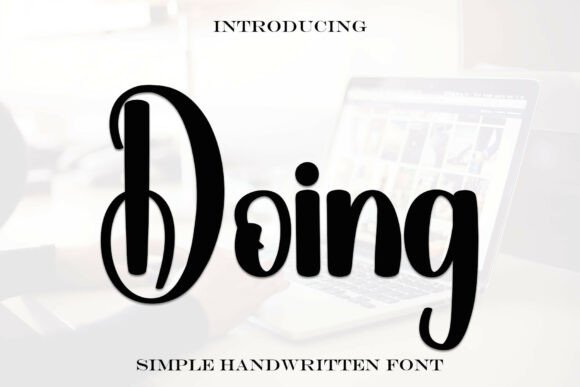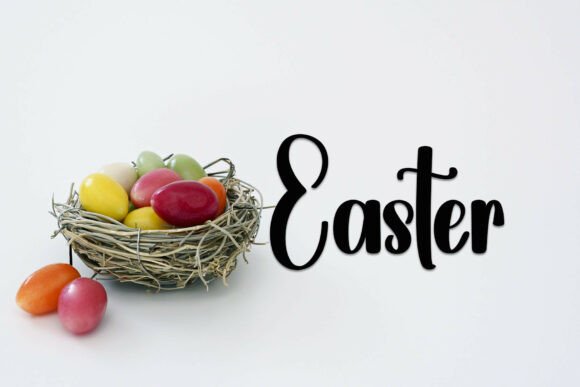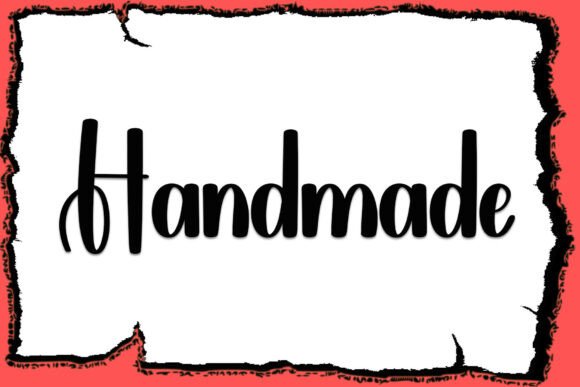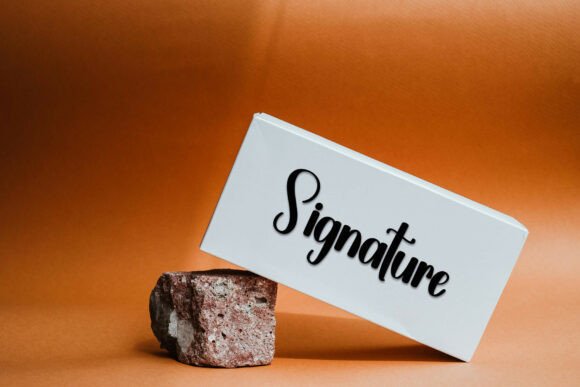
Doing Font: Cute Cursive Handwritten Font for Branding & DIY
About the Doing Font
Welcome to the world of Doing Font, a typeface that will inspire your next great project. Doing is a sweet and cursive handwritten font. This gentle font will look gorgeous on a variety of design ideas. It will add a joyful and romantic touch to each of your projects! Perfectly fit for branding, logo, wedding things, greeting cards, fashion, lookbook, marketing promotion, and any time you want your design to look fancy and elegant but still casual.
Doing Font’s gentle, cursive style excels in applications requiring a touch of romantic elegance, such as wedding invitations, greeting cards, and fashion branding. Its hand-drawn quality works well for short, impactful headlines or logos, adding a personal, approachable feel. However, its low x-height and decorative flourishes make it unsuitable for body text or UI elements where readability is paramount.
For optimal pairing, consider combining Doing with a clean sans-serif like Lato or Open Sans for a balanced contrast. Alternatively, a classic serif font such as Garamond or Playfair Display could create a more sophisticated and timeless aesthetic. Avoid pairing it with other highly decorative scripts, as this can result in visual clutter.
The overall personality of Doing Font is best described as friendly, romantic, and slightly whimsical. It’s ideal for brands conveying warmth, creativity, or a handcrafted aesthetic. It projects a feeling of approachability and charm without being overly playful or childish.